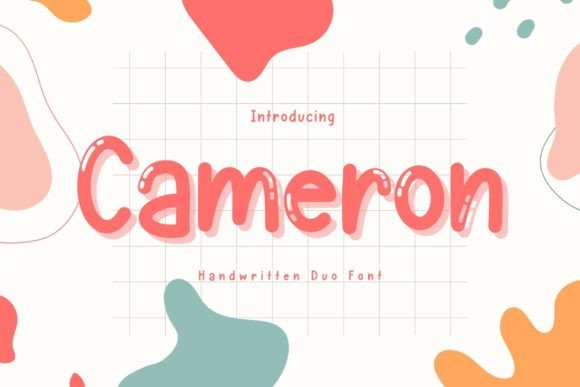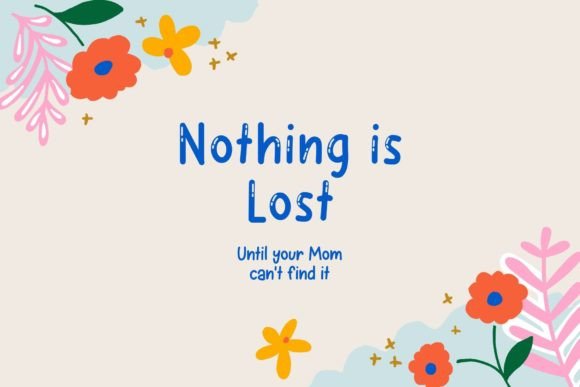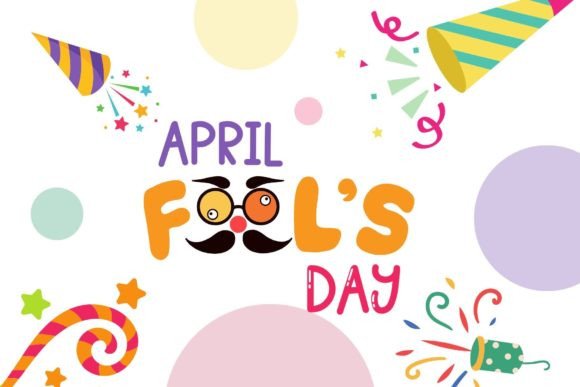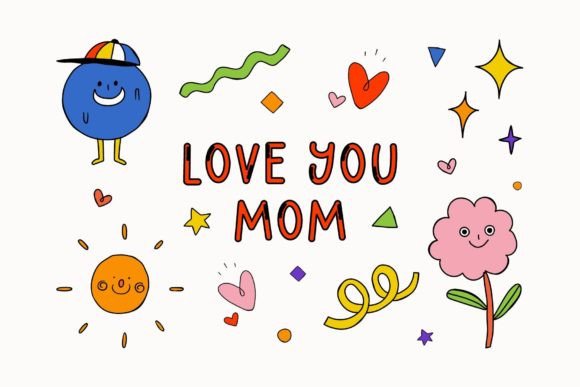
Cameron Font: A Cute Handwritten Font for Cricut & DIY Projects
About the Cameron Font
The wait is over! The incredible Cameron Font is now available for your design toolkit. Cameron is a cute handwritten font. It embodies playfulness and authenticity and is the perfect choice for all your favorite projects such as blog posts, logos, branding, ads, invitations, greeting cards, planners, photo albums, decorations, and much more. Add it to any of your designs, and enjoy the results!
Cameron’s playful hand-drawn feel makes it ideal for projects requiring a friendly, approachable aesthetic. It excels in headlines, short text blocks on packaging, and social media graphics. Use it sparingly in branding elements—logos, for instance, might benefit from a more refined supporting font. Avoid using Cameron for body copy or UI elements; its informality would hinder readability in extended text.
Pair Cameron with a clean sans-serif like Open Sans for a balanced contrast, or a classic serif such as Garamond for a touch of sophistication. A geometric sans-serif like Montserrat adds a modern edge, while a simple script font can enhance the handwritten feel for invitations or wedding stationery.
Its inherent charm makes Cameron a strong choice for brands focused on crafts, children’s products, or projects emphasizing warmth and authenticity. Avoid pairing it with overly bold or aggressive fonts. Maintaining a sense of visual lightness is crucial to letting its inherent charm shine through.
Cameron Font Usage Examples
Cameron Font Example